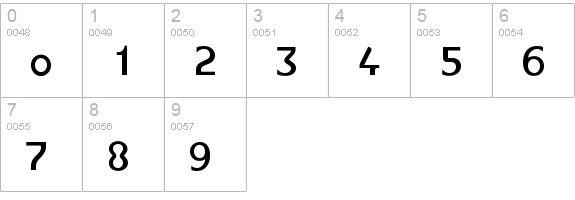
Gerstner BQ Regular Font Details
Gerstner BQ Regular is the standard, neutral variant in the Gerstner typeface family \xE2\x80\x94 well suited to general body text, paragraphs, and standard typographic work.
Gerstner BQ Regular font is a classic and elegant typeface that exudes sophistication and charm. Its timeless design makes it suitable for a wide range of projects, from branding and print materials to digital designs and websites. The clean lines and balanced proportions of Gerstner BQ Regular font lend a sense of professionalism and refinement to any text. What sets Gerstner BQ Regular font apart is not only its aesthetic appeal but also its versatility. Whether you're looking to create a sleek and modern look or a more traditional and formal feel, this font has you covered. Its readability and legibility make it a great choice for body text, headlines, and everything in between. And the best part? Gerstner BQ Regular font is available for free download at FontsMarket.com. So go ahead and elevate your design projects with this beautiful and timeless typeface today!